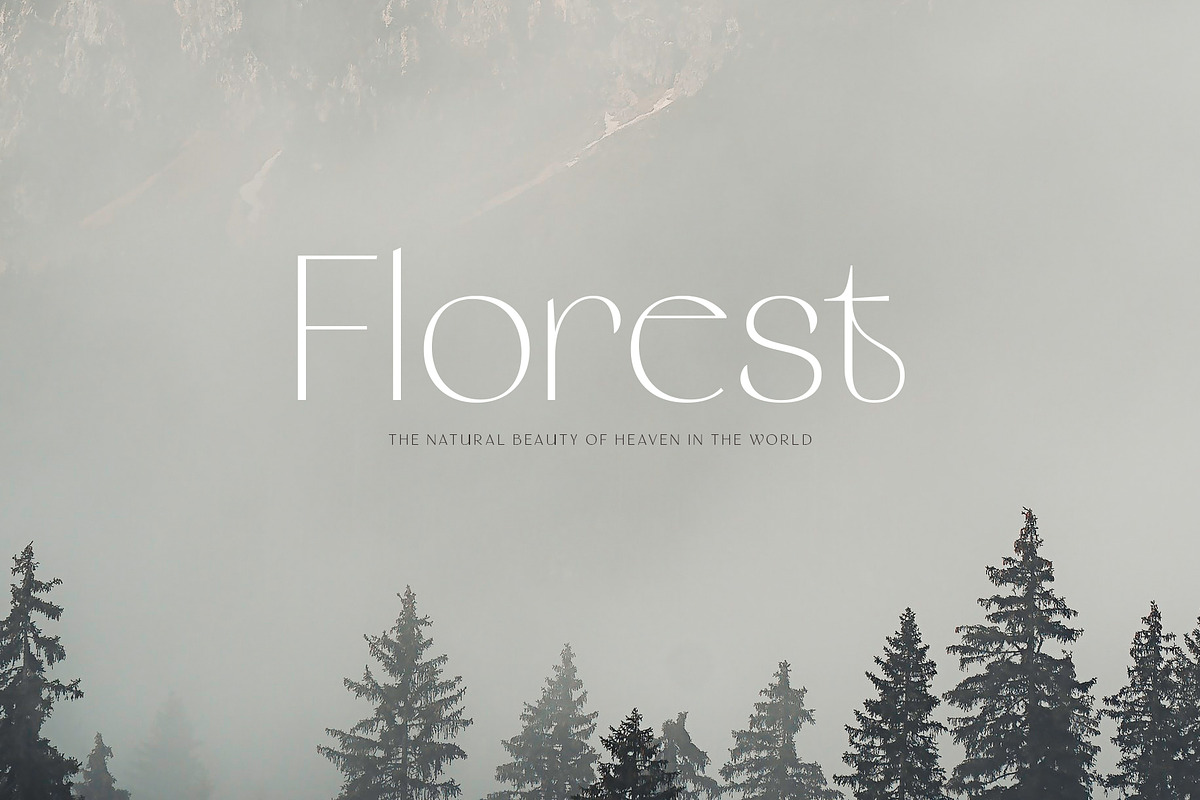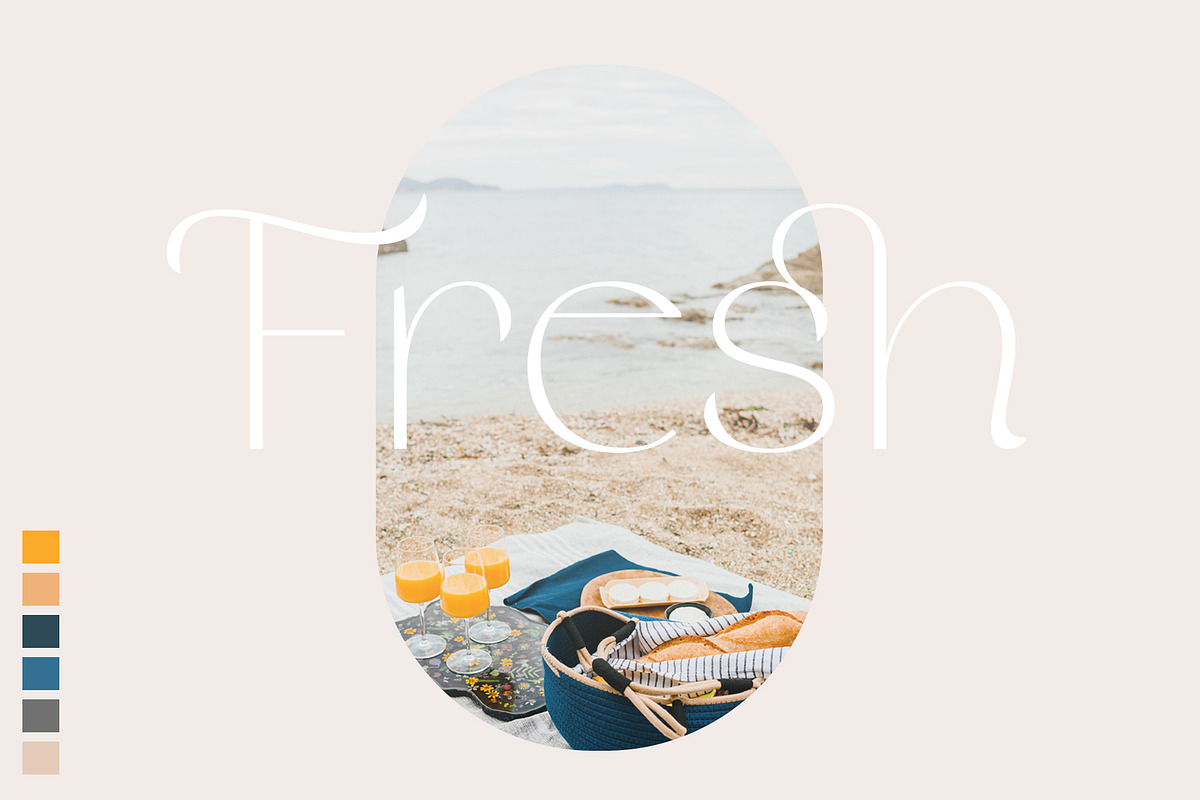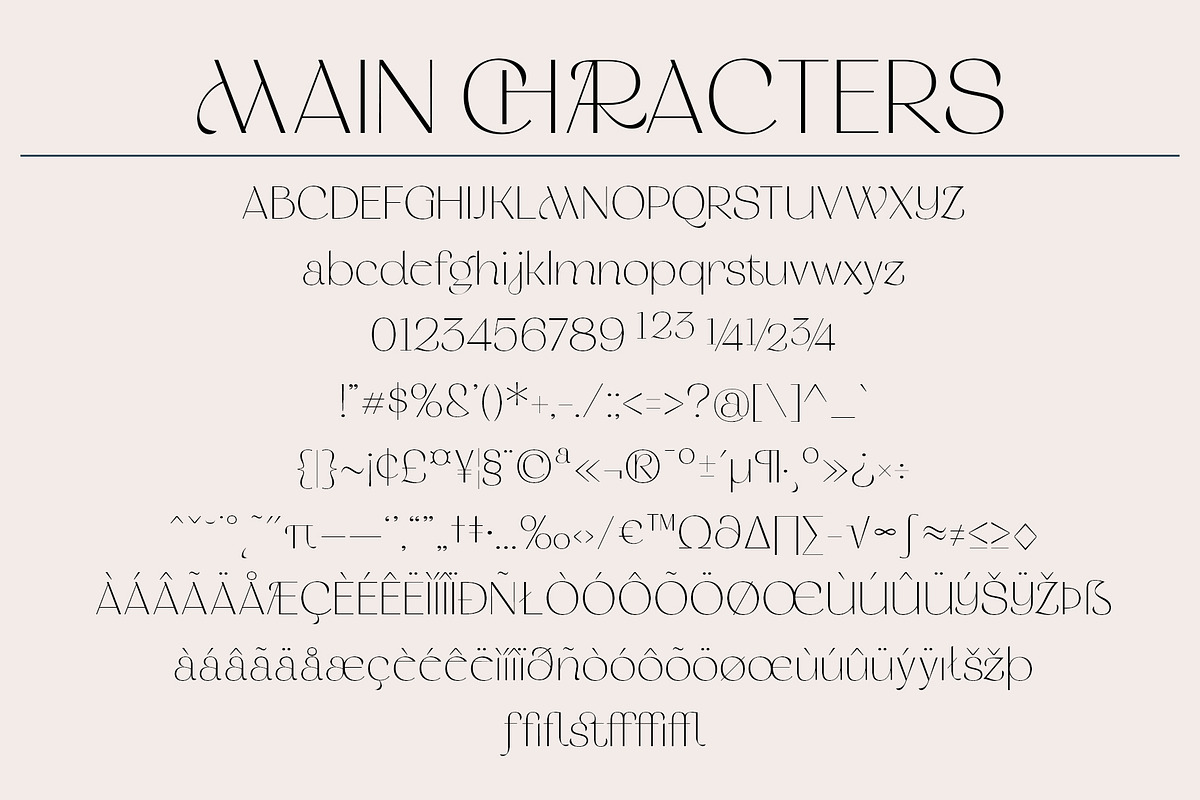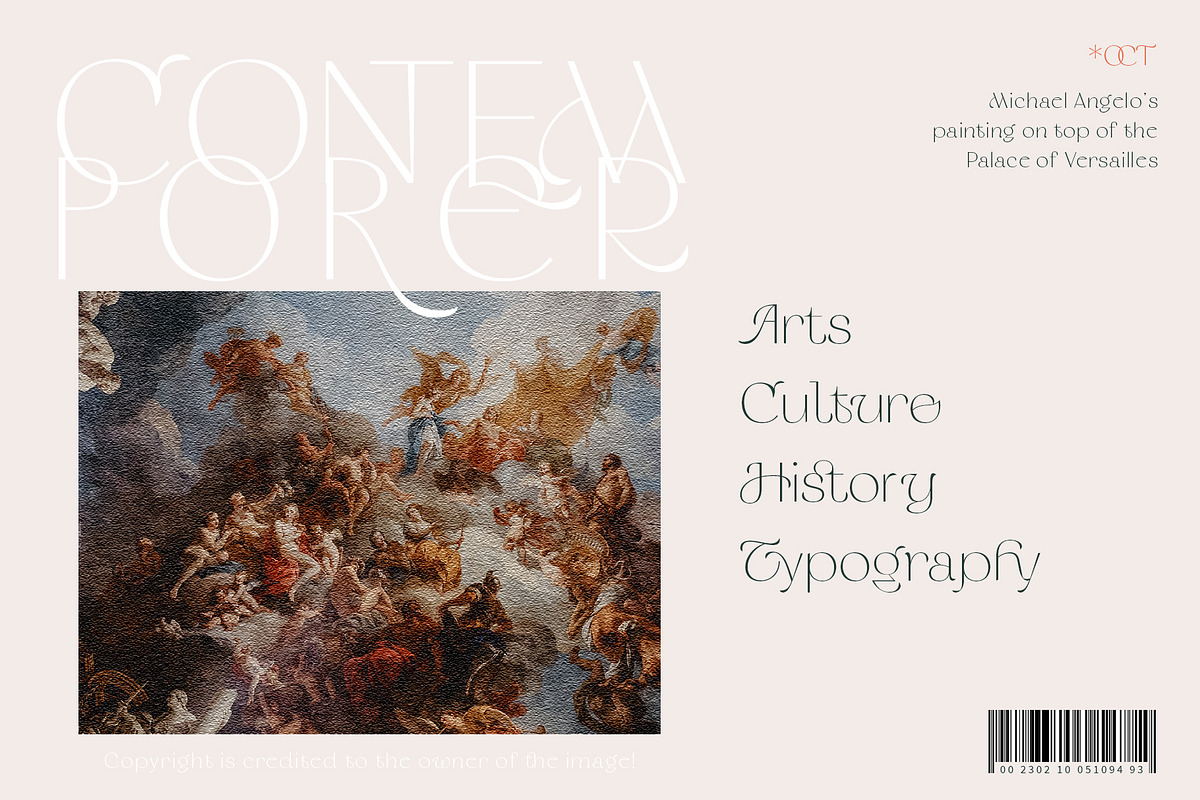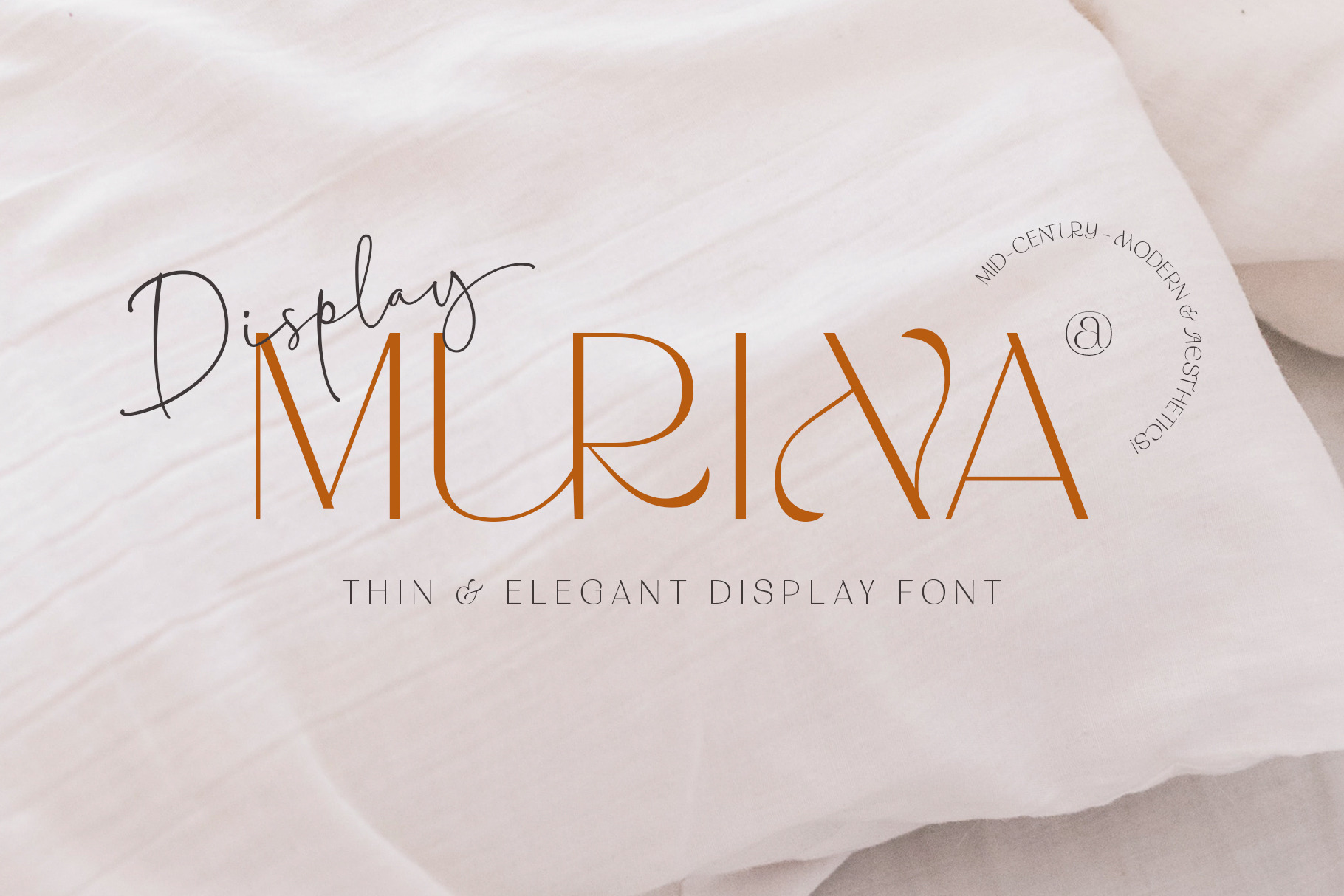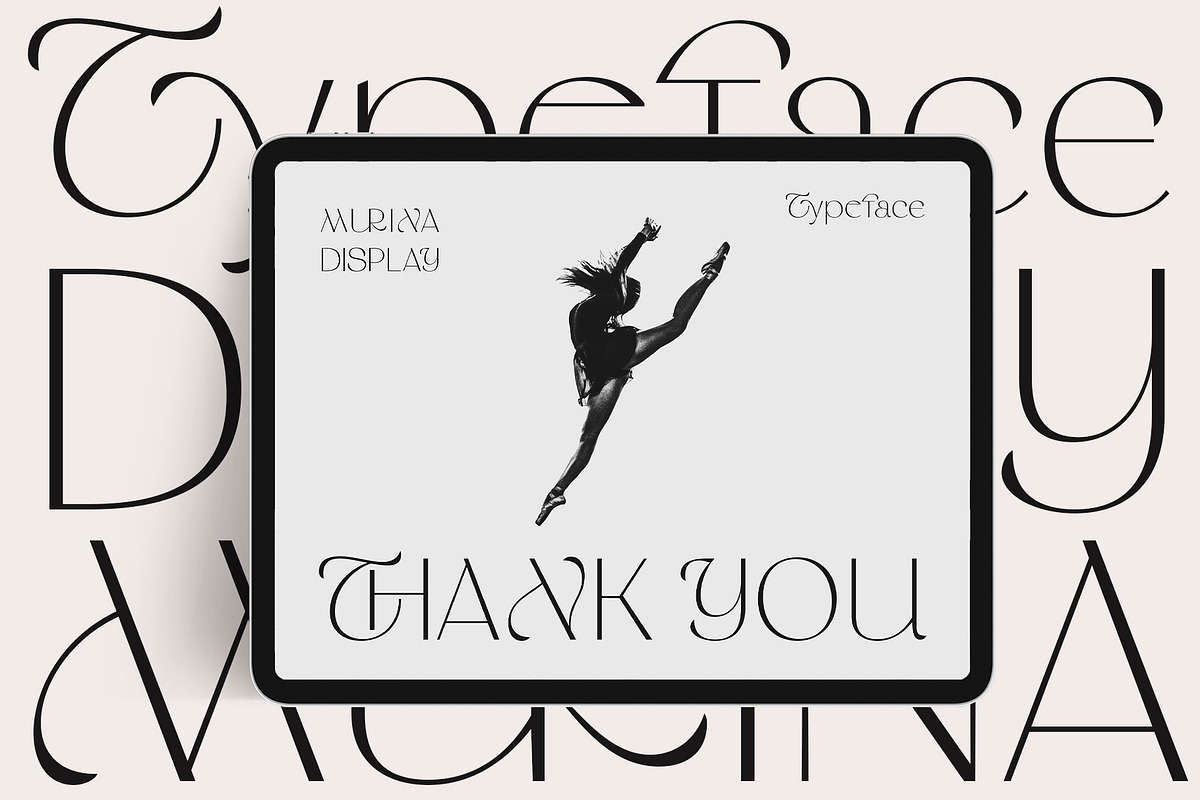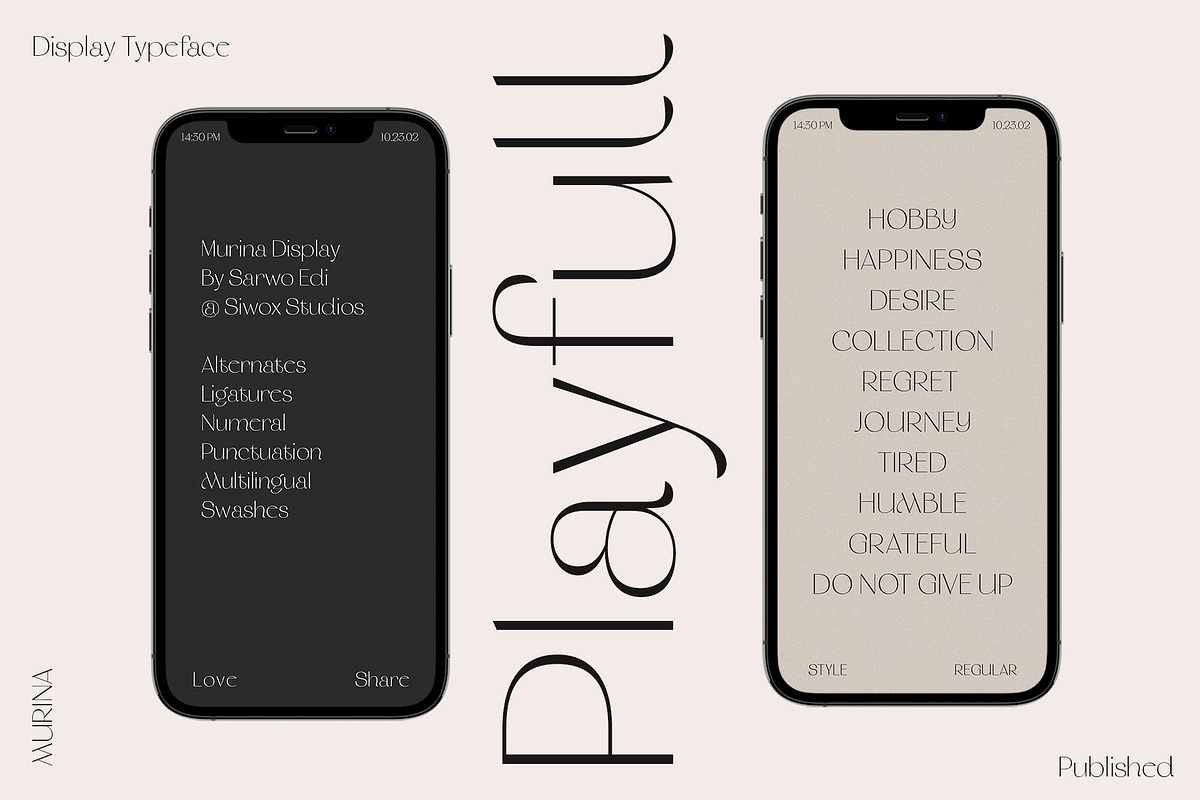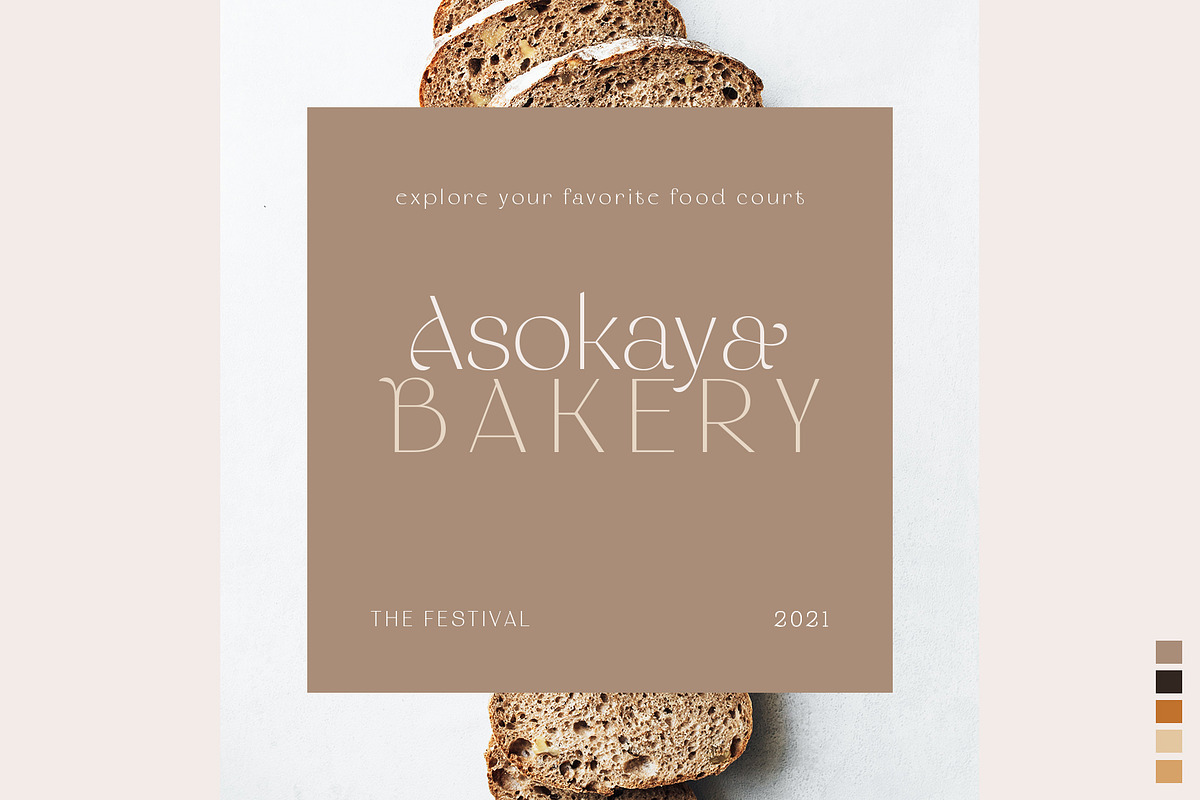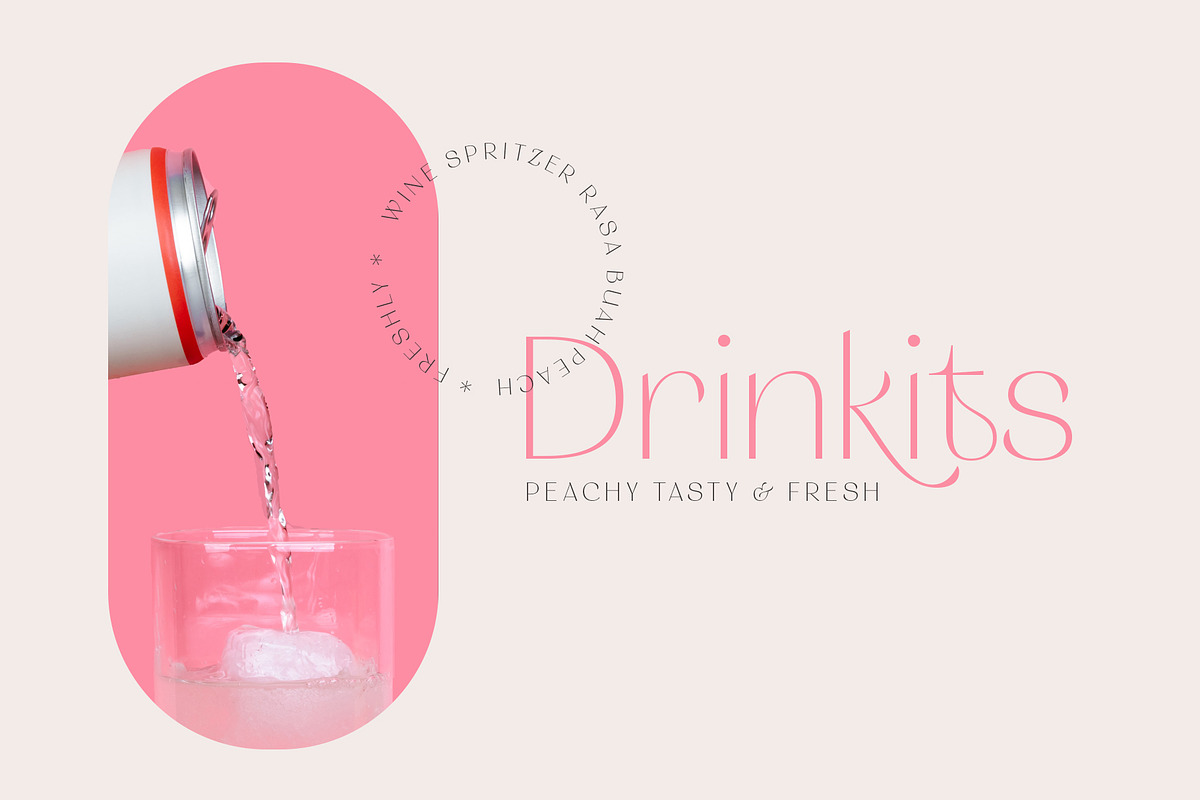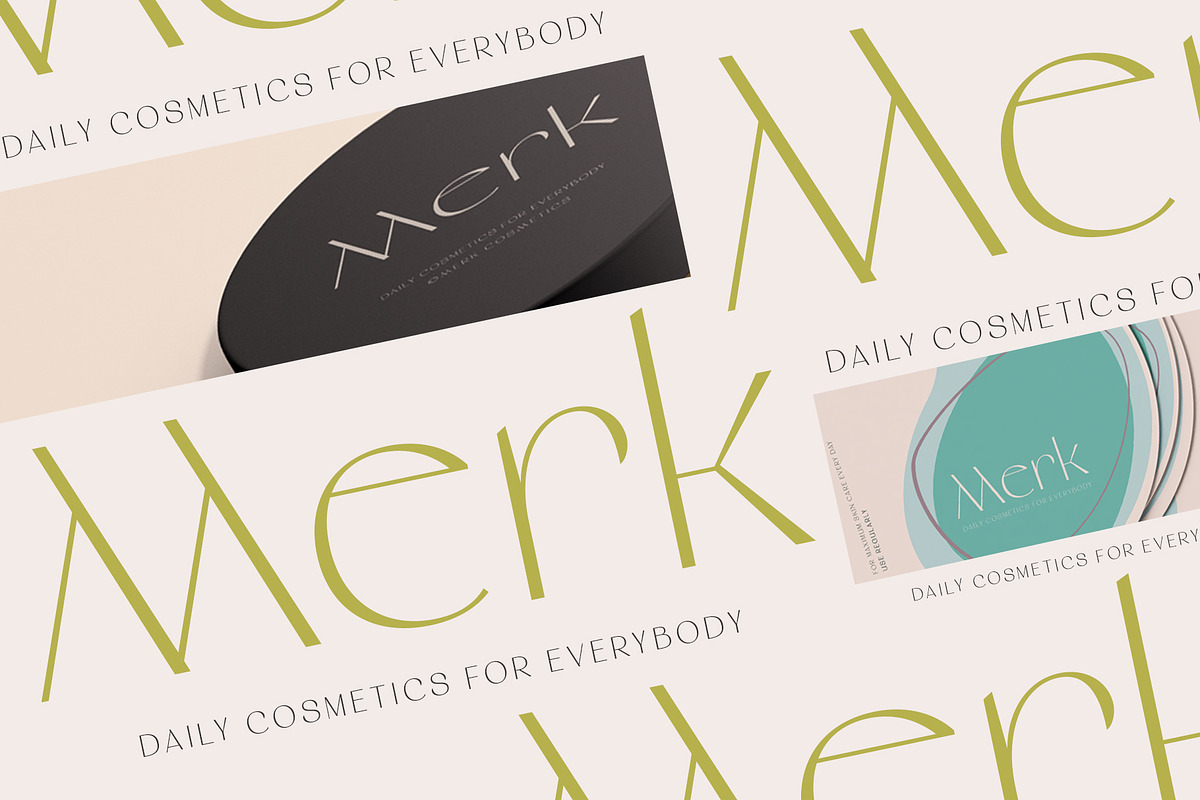
Murina Elegant Display Font
It is a sans serif contemporary with Mid-Century, Modern & Aesthetics style. Sans serif style combined with swash, some letters with shades of Blackletter complete with Ligatures and Alternative Letters to complete all your design explorations.
It is suitable for use in any design project such as classic, retro, vintage and also perfect for modern or minimalist design styles.